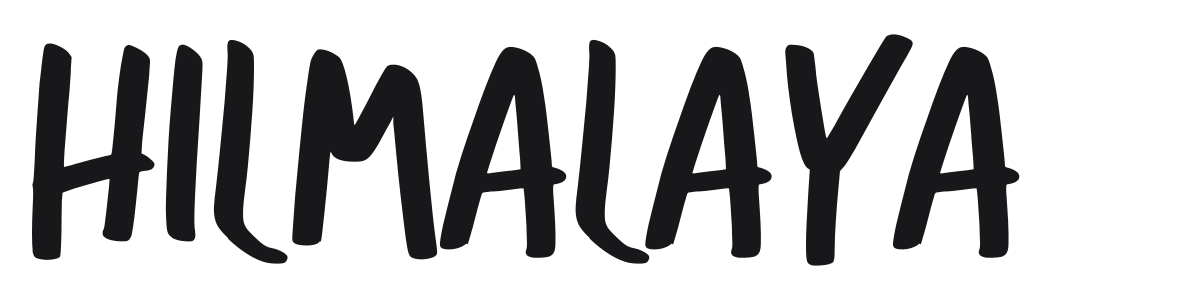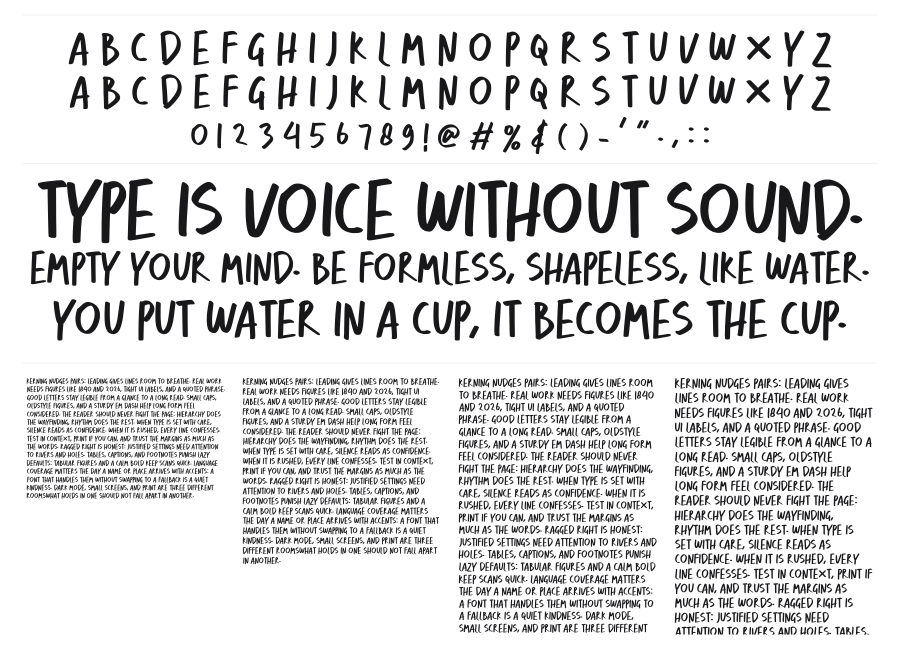
Hilmalaya
Hilmalaya is a bold upright casual script that captures the energy of quick hand-lettering with a chunky marker or brush pen. The irregular stroke edges and slightly bouncy rhythm give it an authentic handmade feel without looking sloppy. It reads well at large sizes for headlines, packaging, and anything that needs warmth and personality.